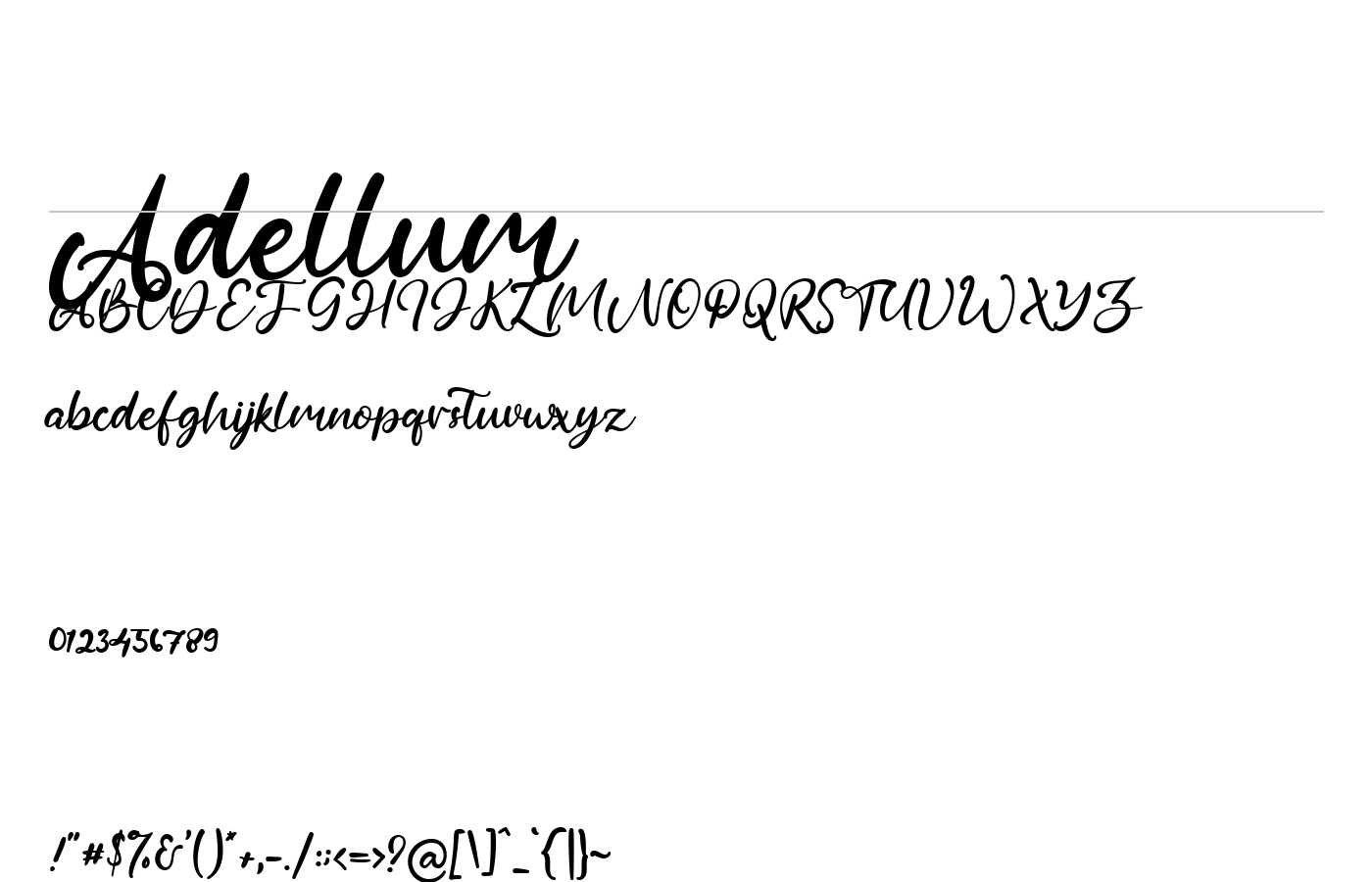
Adellum is an elegant script font with a fluid, handwritten style that combines graceful curves with varied stroke weights, giving it a lively yet refined appearance. Its medium contrast and slightly condensed forms make it ideal for sophisticated branding, invitations, and stylish headlines where a personal and artistic touch is desired. This font works beautifully in contexts that seek warmth and elegance, such as fashion, luxury packaging, and creative editorial designs.
Adellum Font